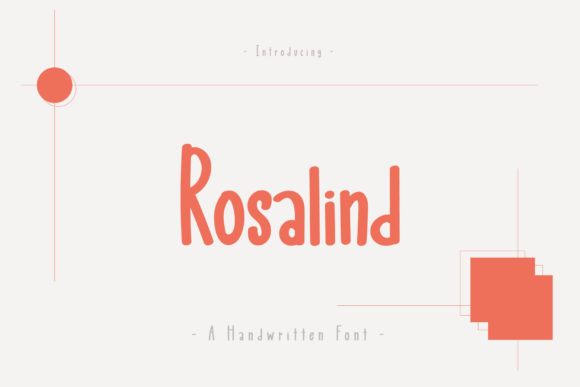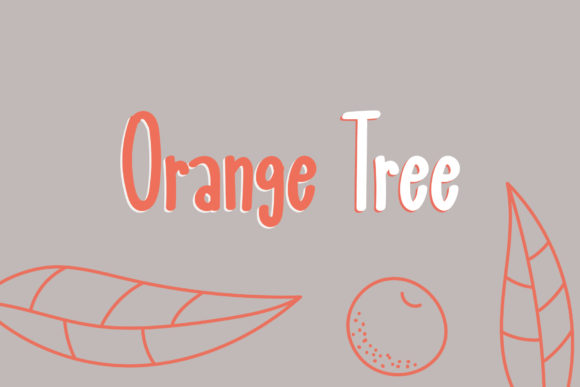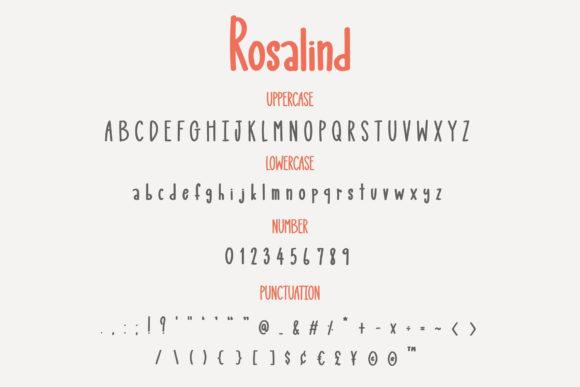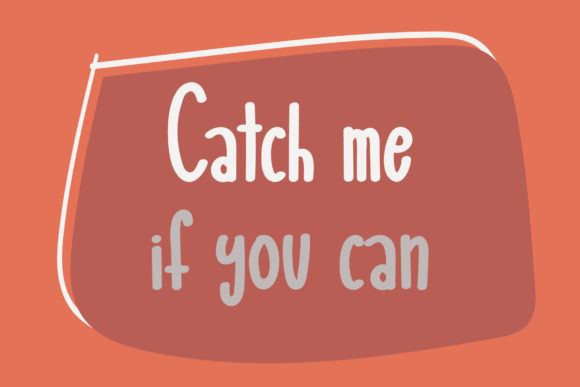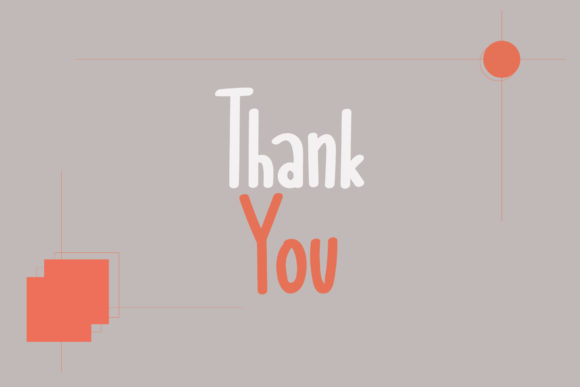
Rosalind Font
About Rosalind Font
Rosalind embodies fun, quirkiness and authenticity. This enchanting handwritten font will turn any creative idea into a true standout!